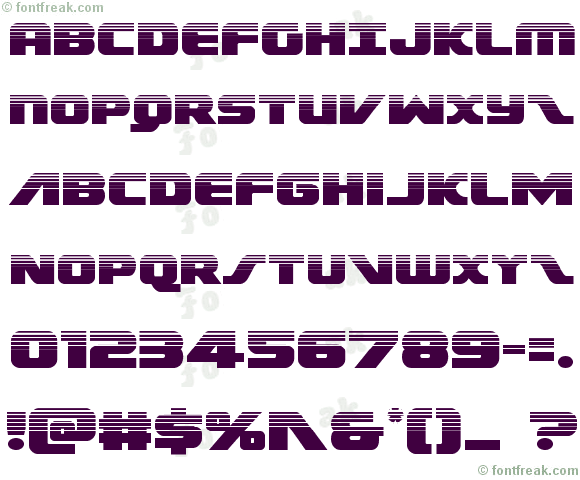
Federal Escort Halftone
About Federal Escort Halftone
Federal Escort Halftone is a striking display font designed by Daniel Zadorozny, categorized under decorative typefaces. Released in 2013, this font features a unique halftone effect, characterized by its alternating solid and outlined strokes, creating an eye-catching visual rhythm. The stroke weight varies, lending an intriguing contrast that enhances its dynamic appearance. The spacing is well-balanced, allowing for clear readability while maintaining an artistic flair. The bold and semi-chrome elements combined with italicized styles give it a modern yet retro vibe, making it versatile for various design applications.
This font is perfect for creative projects that require a bold statement. Ideal use cases include movie posters that aim to capture attention, promotional graphics for events, and even branding for tech startups looking for a contemporary edge. Additionally, it can be employed in advertising campaigns, particularly for products that focus on innovation and style. Graphic designers and small business owners will find this font particularly useful for creating memorable logos or engaging social media graphics that stand out in crowded feeds.
The target audience for Federal Escort Halftone includes graphic designers, content creators, and marketing professionals who are searching for a distinctive typeface that adds character and personality to their work. Its unique design elements cater to those looking to infuse a sense of modern artistry into their projects.
What sets the Federal Escort Halftone font apart is its ability to blend form and function seamlessly. The halftone effect not only provides aesthetic appeal but also enhances the overall message of any design. For those seeking a fresh and impactful typeface, the Federal Escort Halftone font free download offers an opportunity to elevate creative endeavors with its distinctive style.